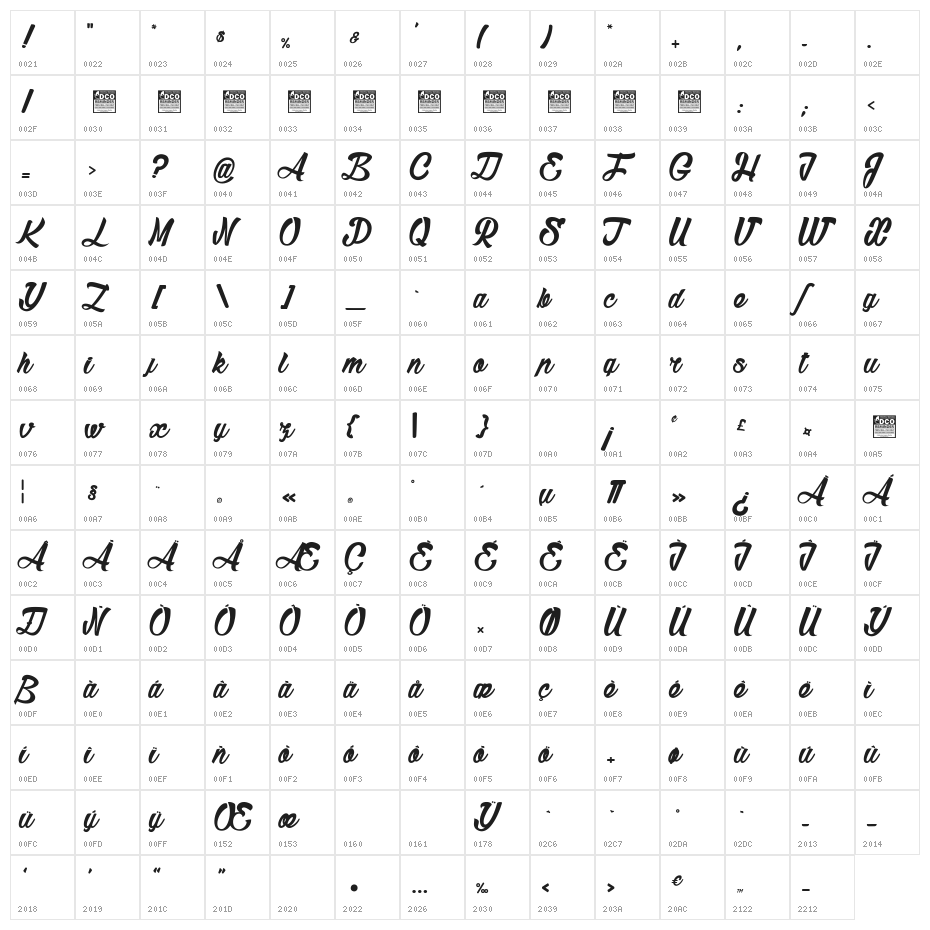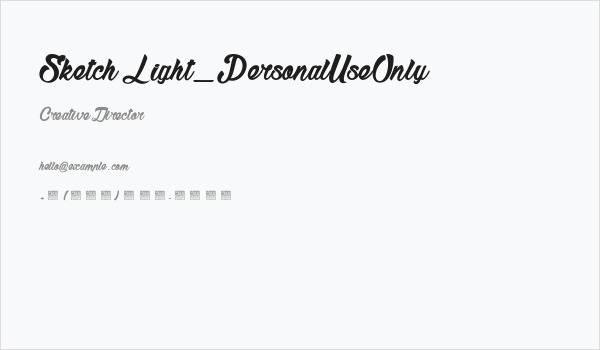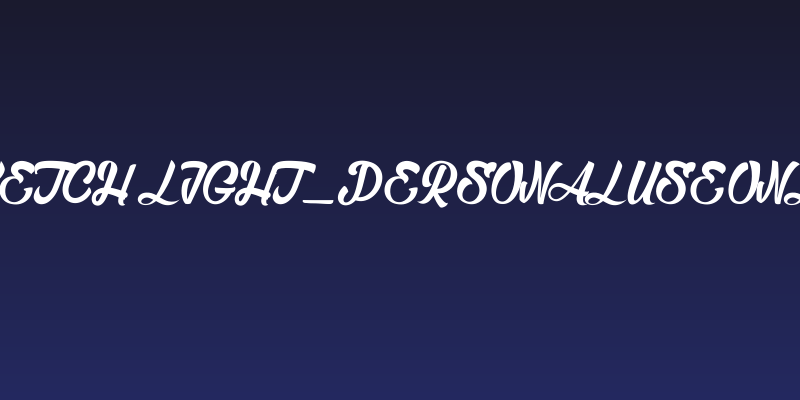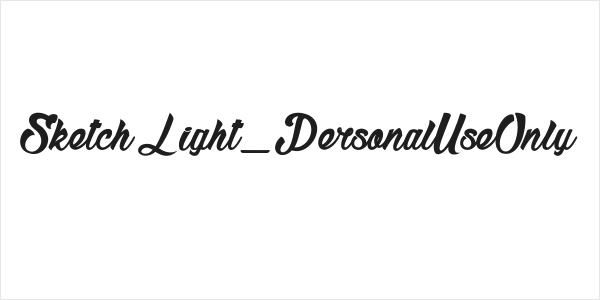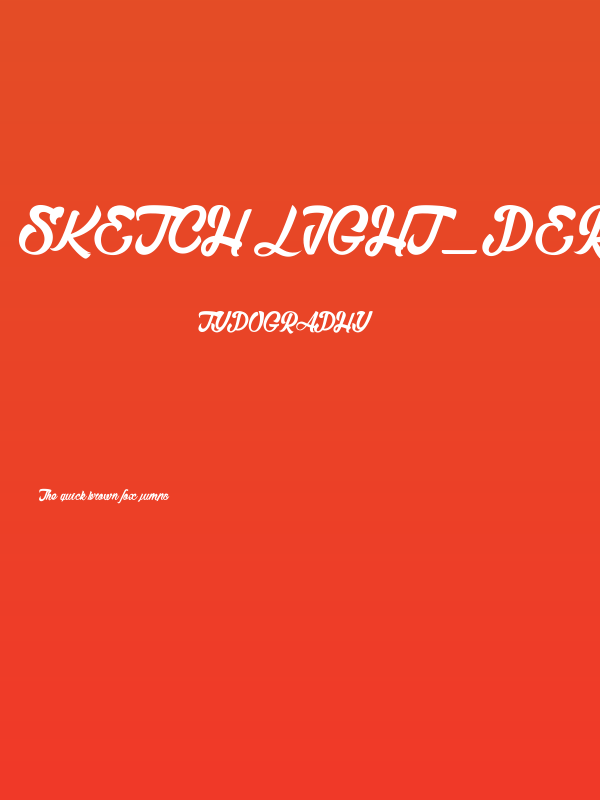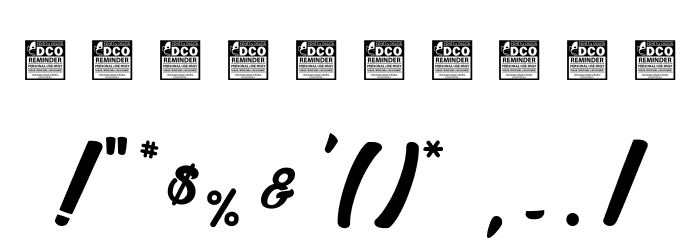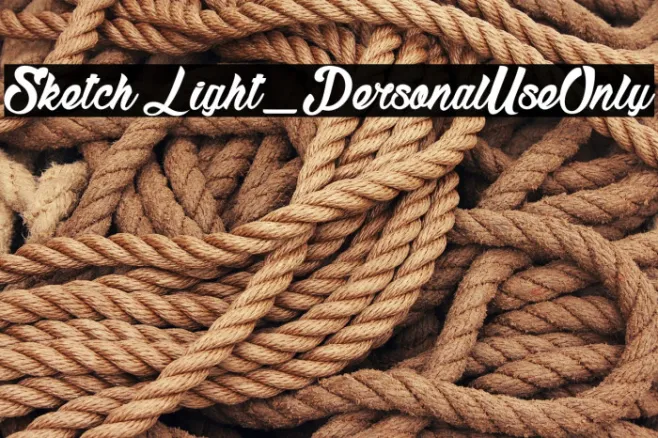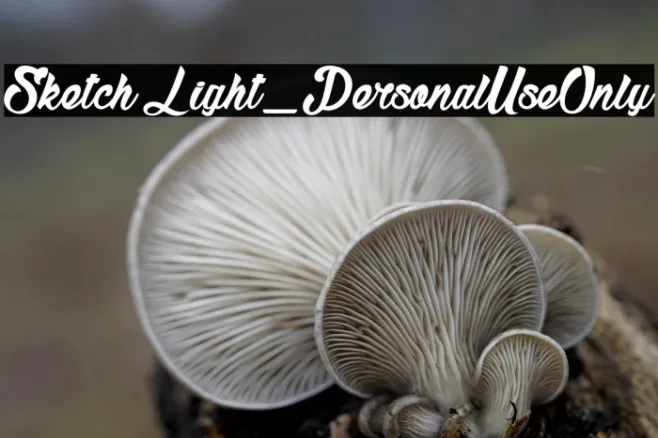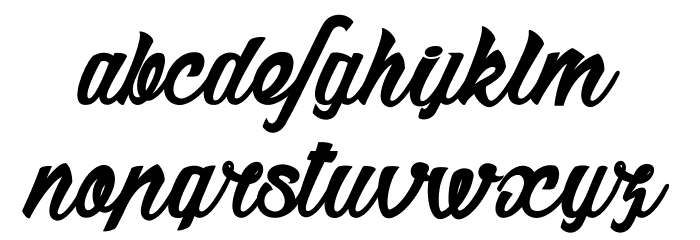
Sketch Light_PersonalUseOnly Font
Sketch Light_PersonalUseOnly Description
This font features a dynamic and flowing script style, characterized by its elegant and cursive letterforms. The uppercase letters exhibit a graceful and sweeping motion, while the lowercase letters maintain a consistent fluidity, enhancing its handwritten appeal. The font's strokes are moderately thick, providing a balanced contrast that ensures readability without compromising its decorative nature. The special characters complement the overall style, maintaining the same fluidity and elegance. This font is ideal for projects that require a personal and artistic touch, such as invitations, greeting cards, and branding materials.